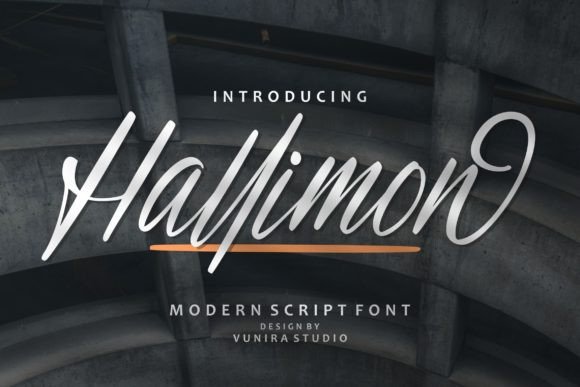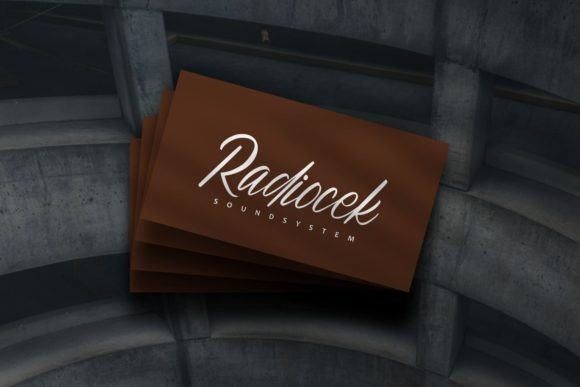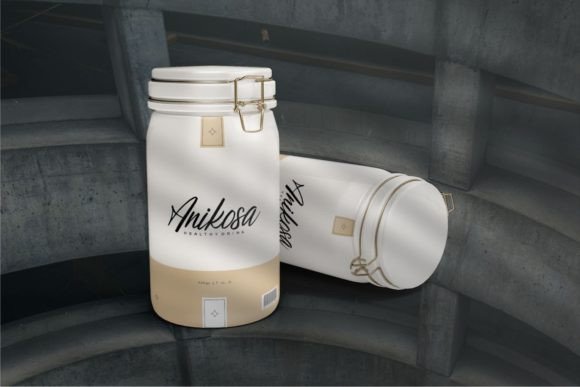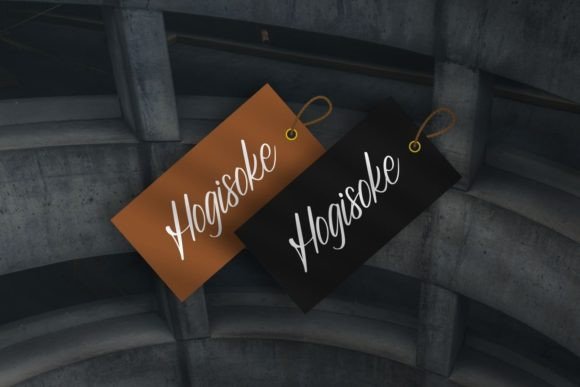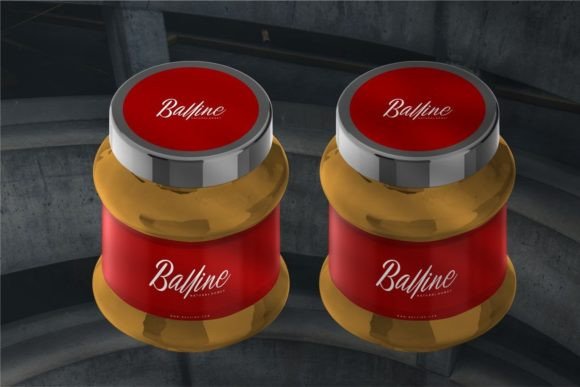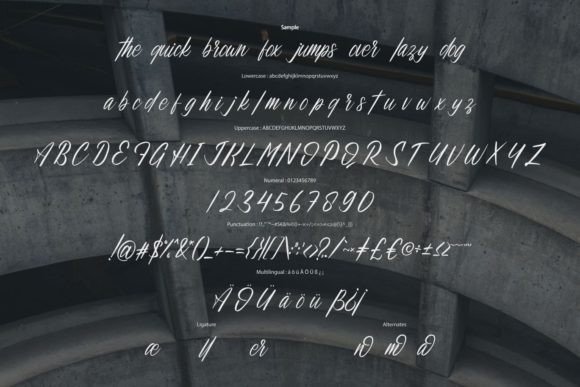
Hallimon Font
About Hallimon Font
“Hallimon” is a modern script font with a sophisticated calligraphy style, making it a stunning choice for various design projects. Its elegant and graceful appearance enhances the beauty of invitations, greeting cards, branding materials, business cards, quotes, posters, and more.
The font’s calligraphic strokes create a sense of fluidity and artistic flair, adding a touch of luxury and refinement to your designs. Whether you’re working on formal invitations, heartfelt greeting cards, professional branding materials, or inspirational posters, “Hallimon” elevates the visual appeal of your projects, making them visually captivating and memorable.
One of the strengths of “Hallimon” lies in its versatility. Its timeless elegance allows it to complement both contemporary and classic design styles, making it suitable for a wide range of applications. The font’s adaptability ensures that it enhances your creative vision, adding a touch of sophistication to every project.
By incorporating “Hallimon” into your designs, you’re infusing them with a sense of modernity and elegance. Its calligraphy-inspired style adds a touch of artistry and refinement, making your projects visually striking and impactful. Whether you’re a graphic designer, a stationery enthusiast, or an individual working on personal projects, “Hallimon” provides you with a versatile and beautiful font choice to enhance your creative endeavors and leave a lasting impression on your audience.